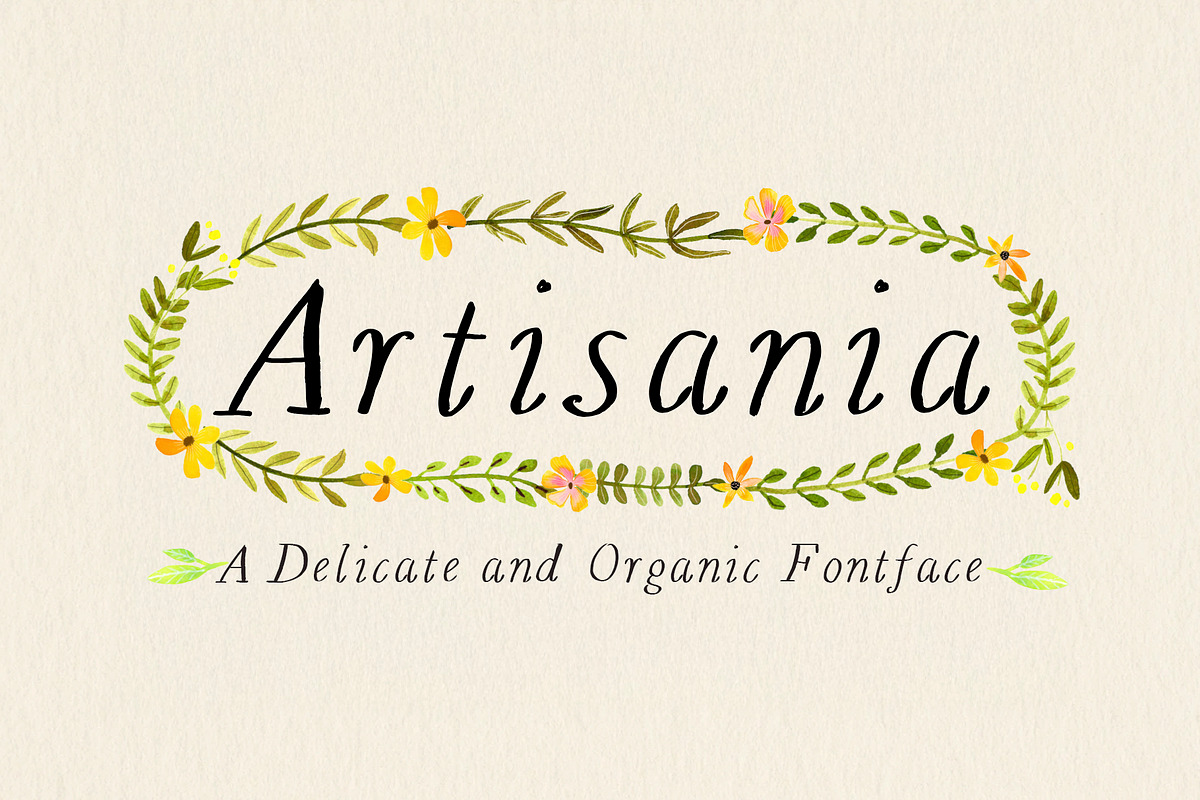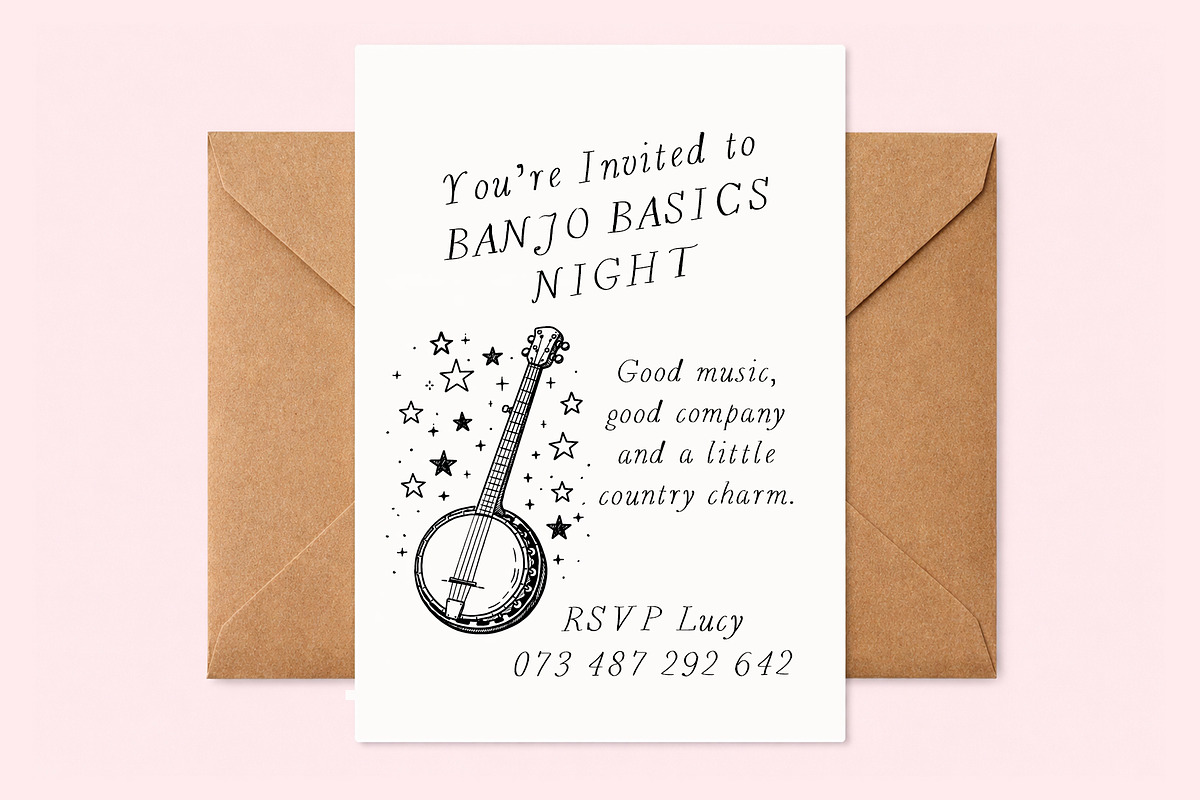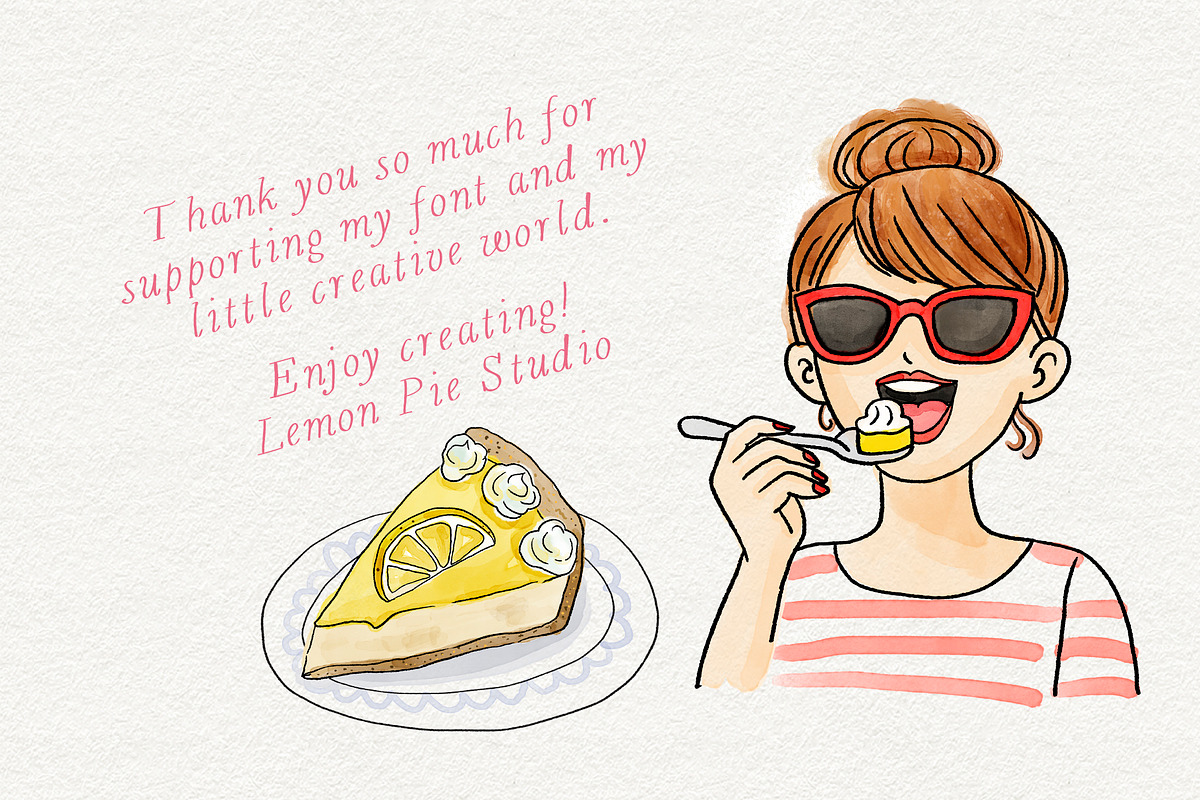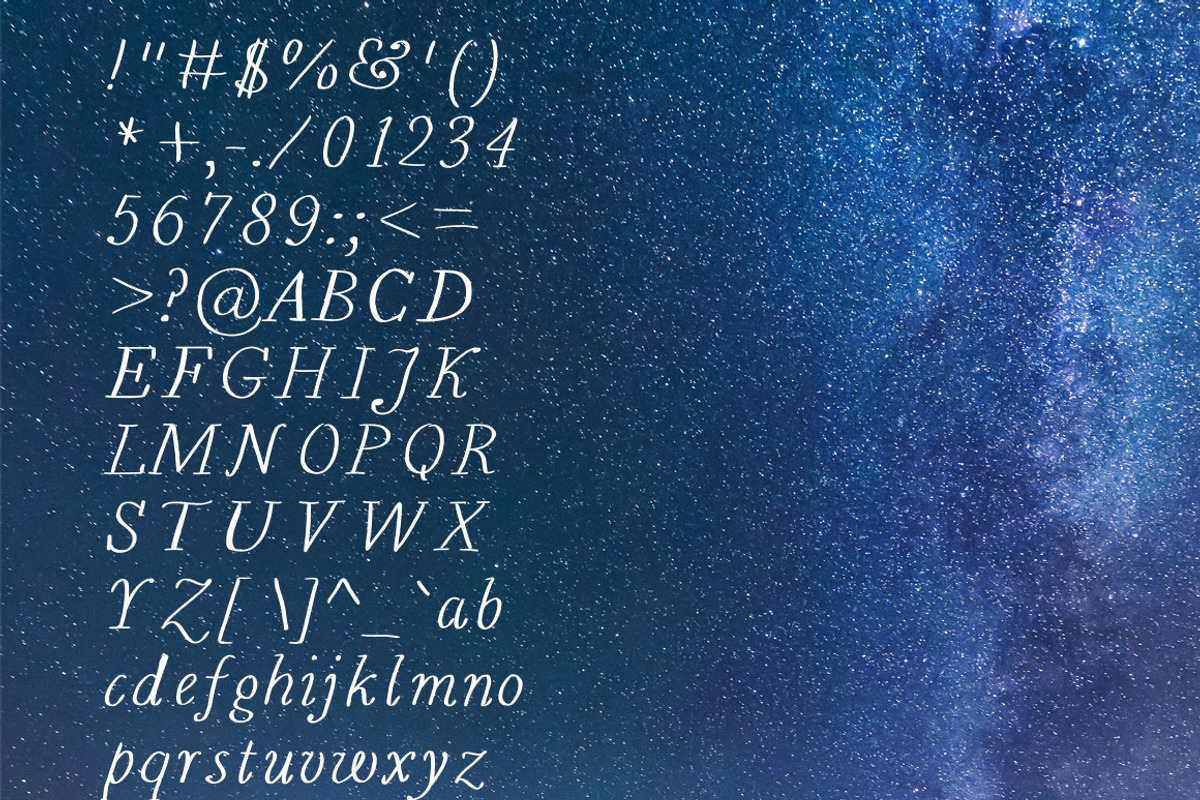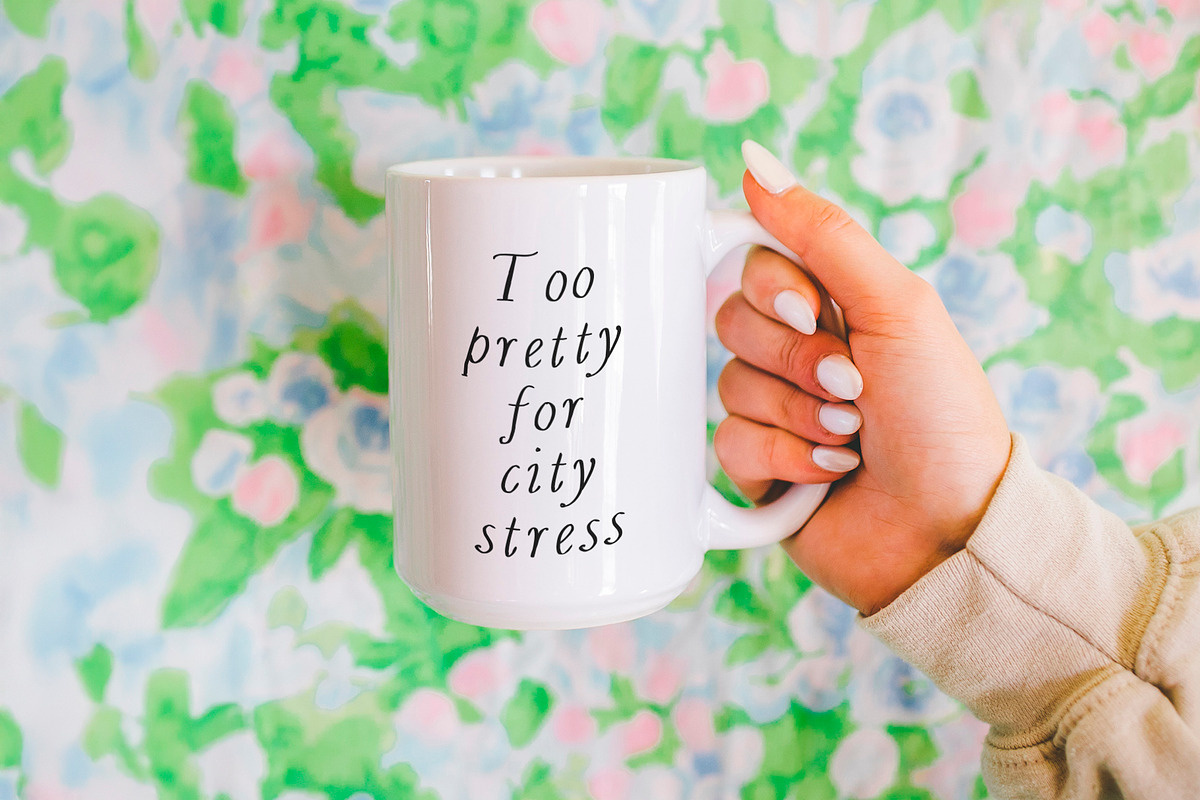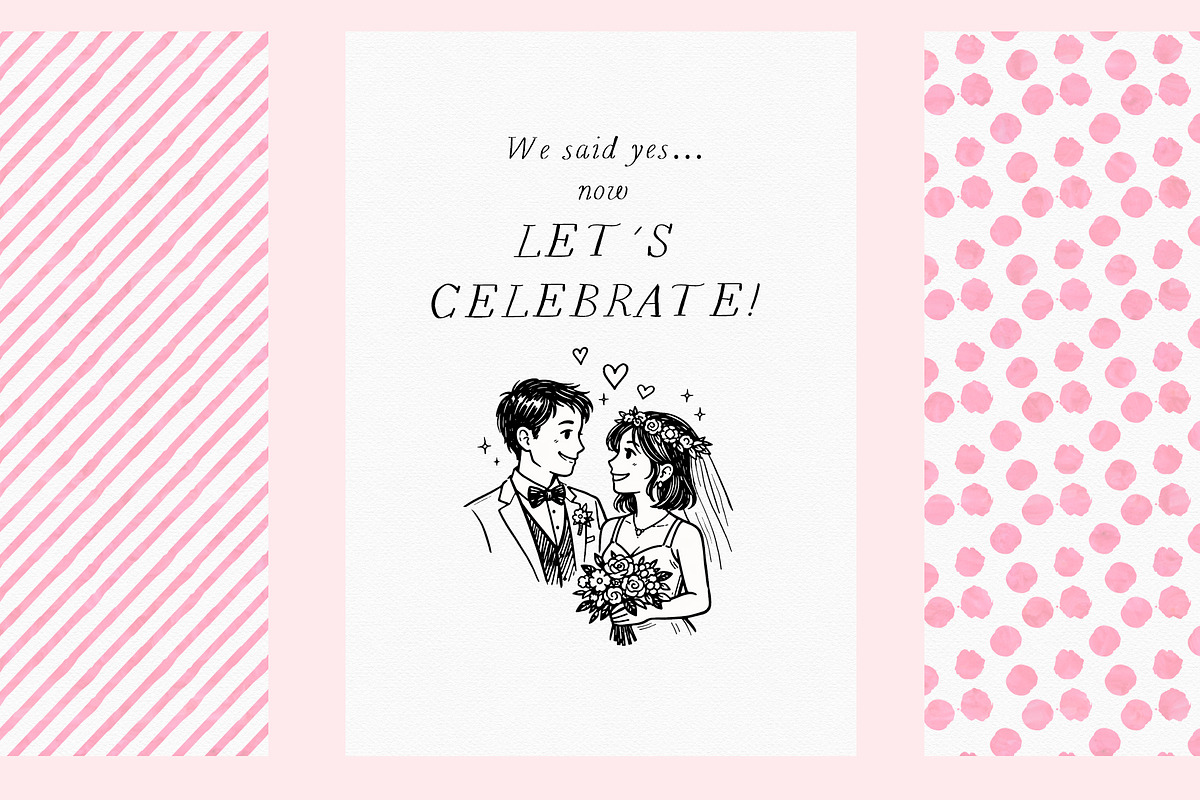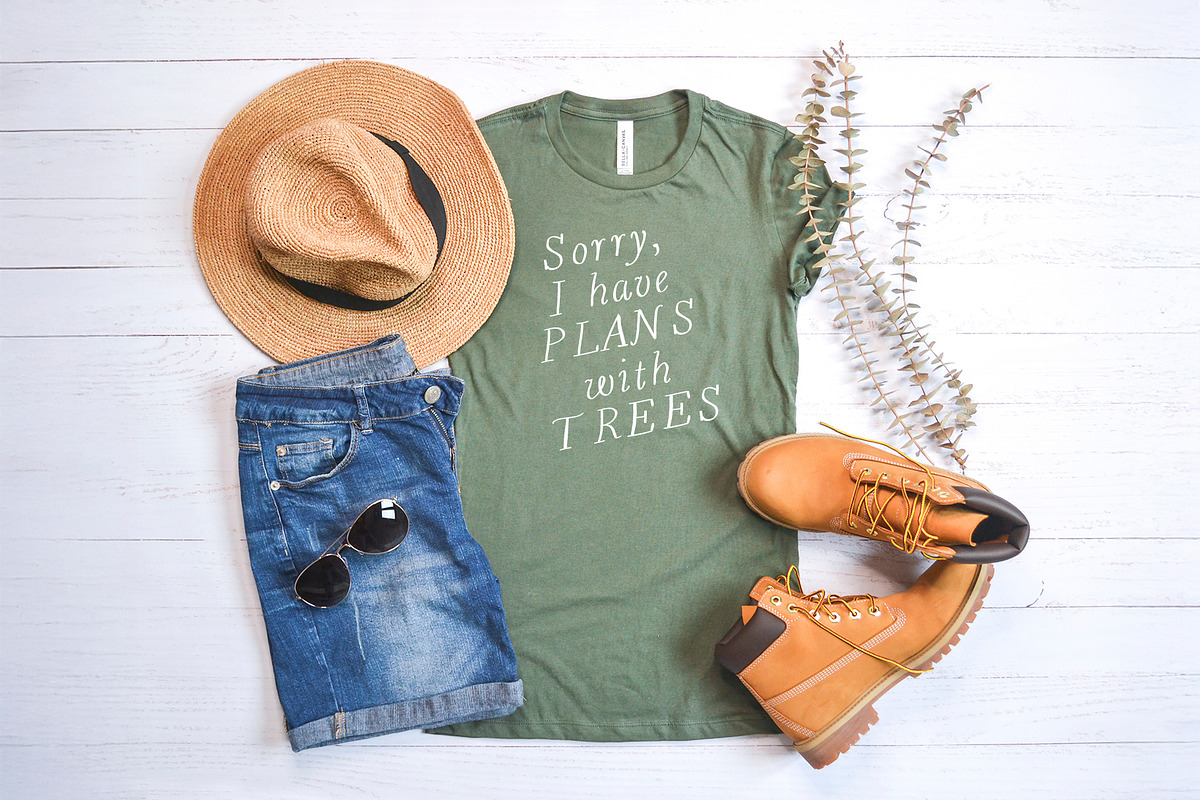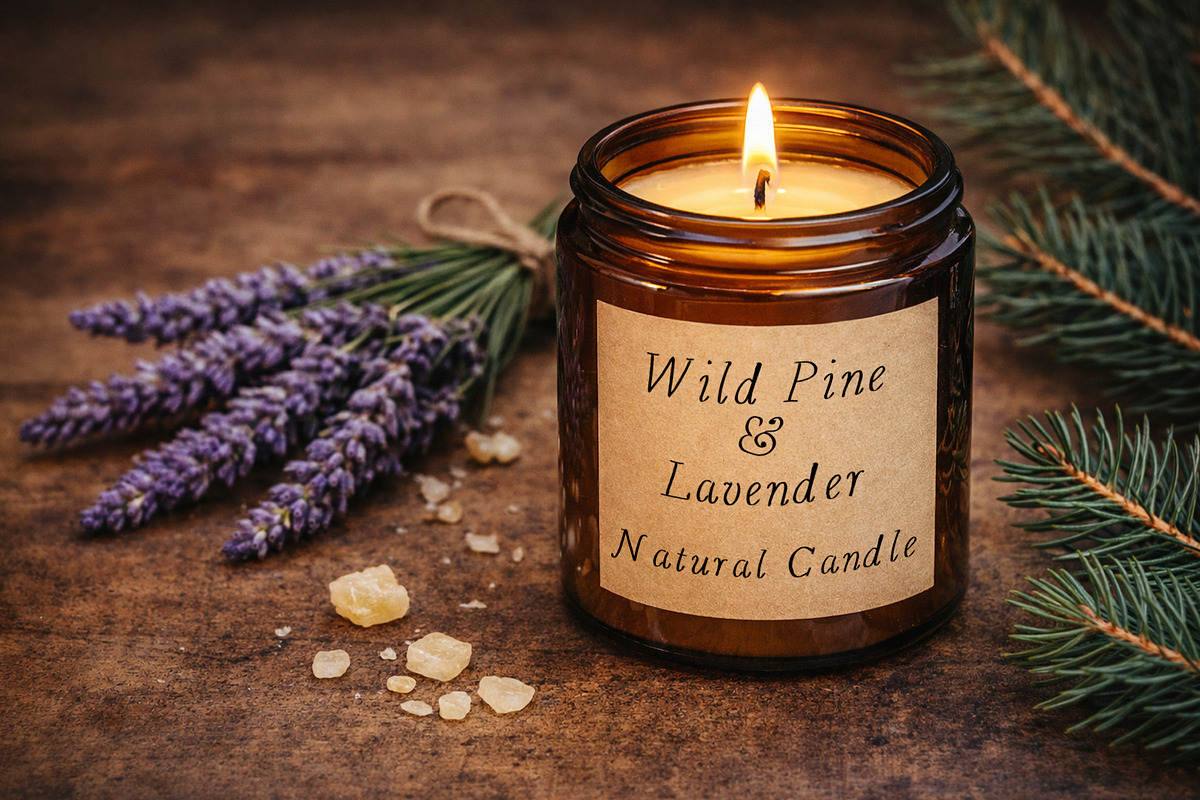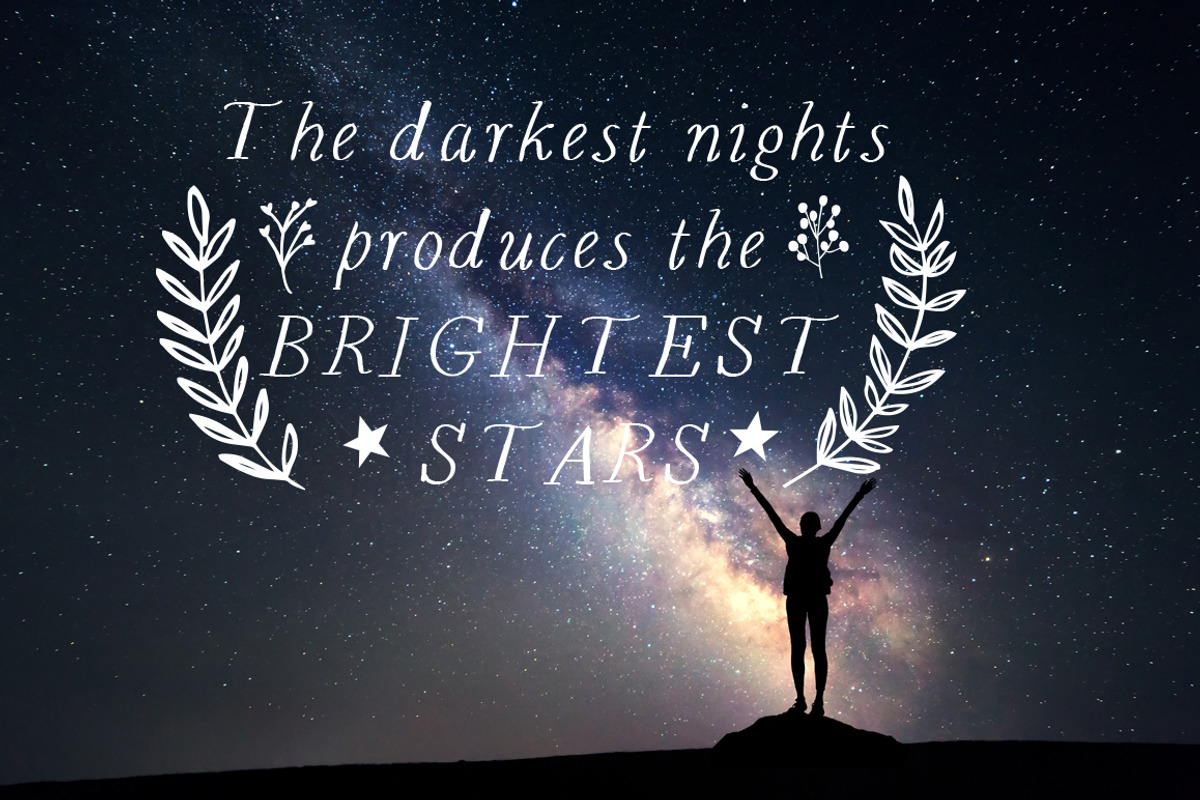
Artisania Handmade Font
I introduce you to my new font Artisania!
Artisania is a handcrafted typeface designed to bring charm and personality to your designs. Perfect for vintage aesthetics, branding, stationery, blog layouts, modern advertising, invitations, weddings and more, it adds a warm and authentic touch to every project.
This font includes uppercase and lowercase characters, punctuation, numerals, and supports international languages. It also comes with beautiful vector extras to enhance your creations.